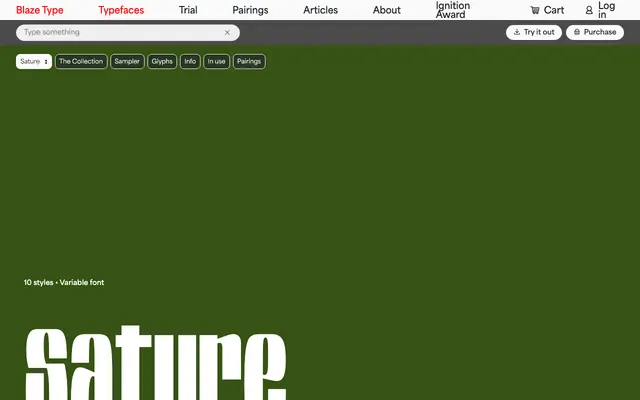
Sature
A display sans by Nicolas Dupuis derived from hand-drawn large-print lettering, built around horizontal expansion to create a saturating, felt-tip marker quality at large sizes.
Designed from paper-drawn lettering, Sature is built on horizontal processing that gives each letterform a dense, expansive fullness particularly legible at display scale. Five weights from ExtraLight to ExtraBold each carry a matching italic, and the variable font allows weight transitions that produce a doubling effect between styles. The name comes from the French "saturer", and the family is intended to be used at excess, pushing layouts toward maximum visual density.
Derived from hand-drawn large-print lettering with a distinctive horizontal expansion that gives letters visible fullness; best suited to display use at large sizes rather than continuous text.